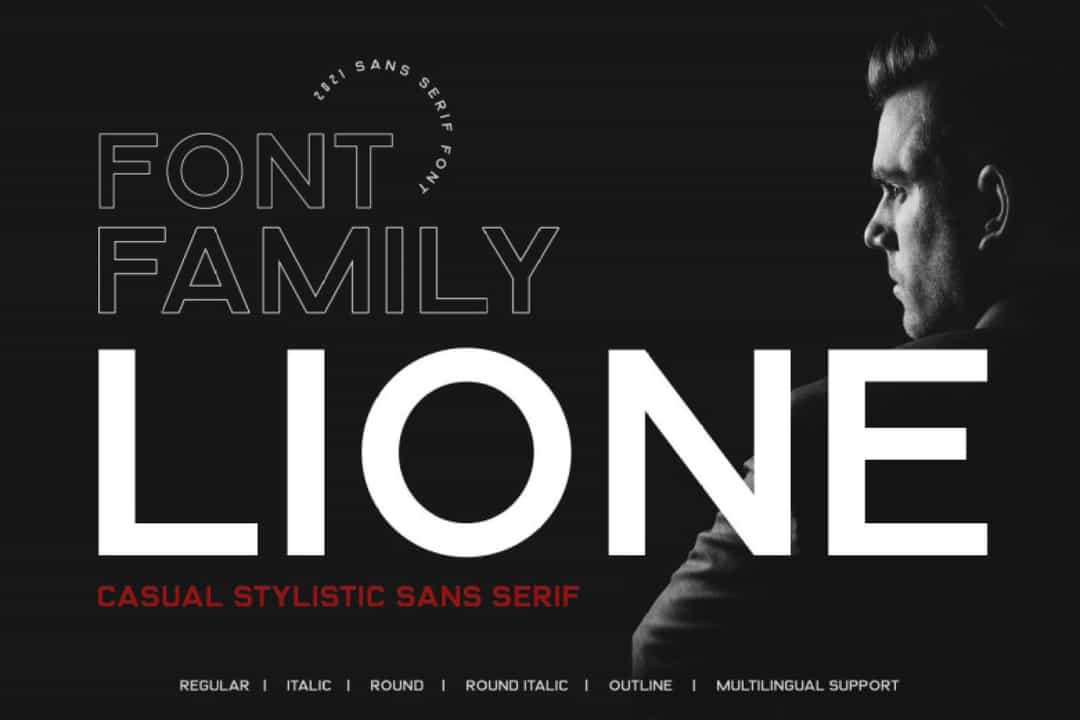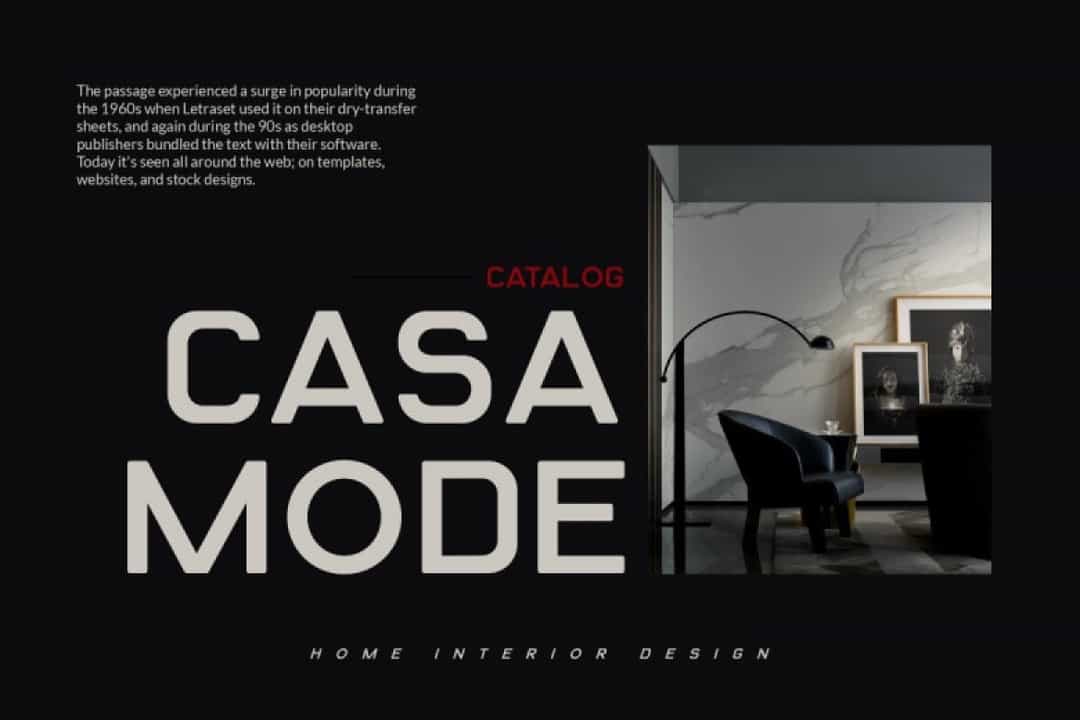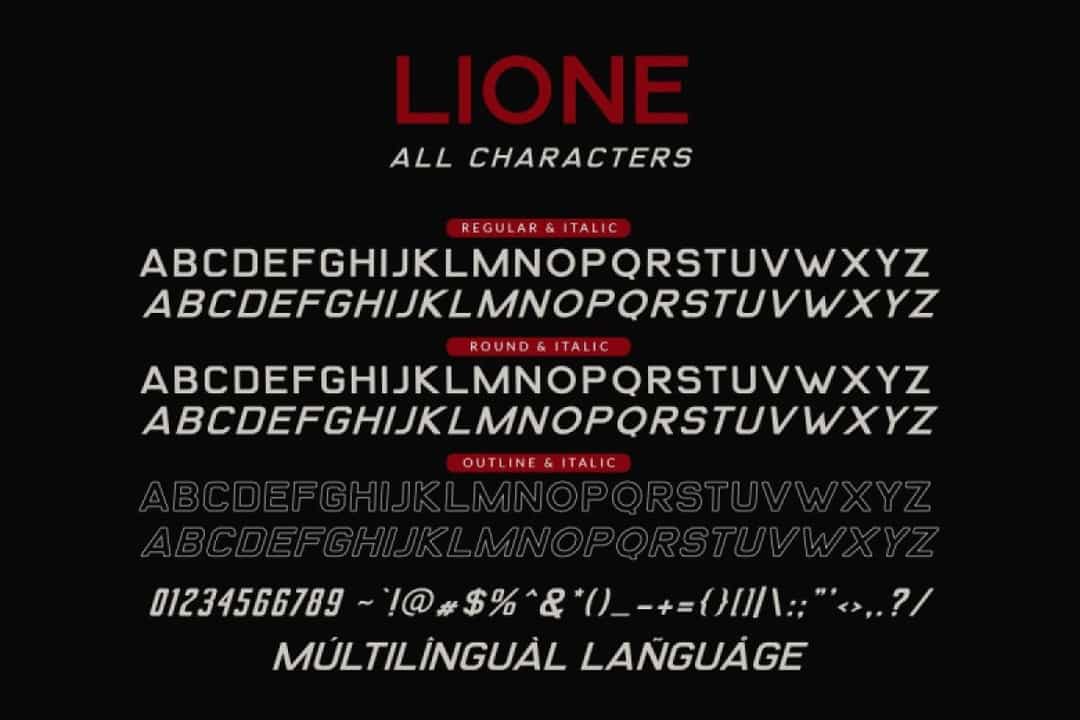
Discover Lione Font Family, part of the Sans Serif collection—a versatile and unique font perfect for adding a personal touch to your projects. Download it for free and enjoy crafting designs with style, from invitations to social media posts. This font is available exclusively for personal use, giving you the freedom to create without limits. Unlock your creativity with Lione Font Family today!
Lione is a minimalist and clean sans serif font that pairs easily with numerous designs – you’ll see its impact come alive when incorporating it in your projects! Be bold with creativity by including this font into your designs – you may just surprise yourself at how your creations shine brighter!